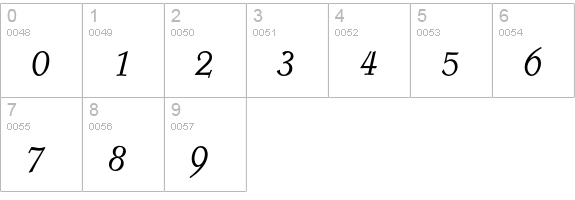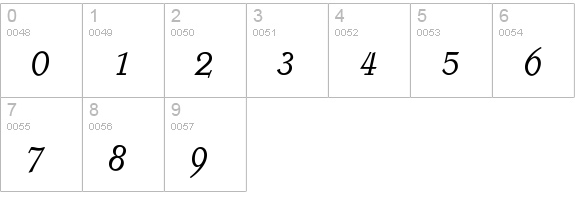
Post-Mediaeval BQ Italic Font Details
Post-Mediaeval BQ Italic is a distinctive, italic variant in the Post typeface family \xE2\x80\x94 well suited to design and typography projects.
Post-Mediaeval BQ Italic is a stunning font that seamlessly blends classical elegance with modern sophistication. Its graceful curves and stylish flourishes make it a perfect choice for adding a touch of refinement to your projects. This italic font exudes a sense of timeless beauty and charm, making it ideal for a wide range of design applications. The Post-Mediaeval BQ Italic font is not only visually appealing but also highly versatile, suitable for both formal and informal settings. Its unique design captures the essence of the post-medieval era while maintaining a contemporary edge that sets it apart from traditional fonts. Best of all, this exquisite font is available for free download at FontsMarket.com. Whether you're working on a branding project, creating invitations, or designing a website, Post-Mediaeval BQ Italic will elevate your designs and leave a lasting impression. Don't miss out on the opportunity to enhance your work with this exceptional font that combines history and modernity in a harmonious way.